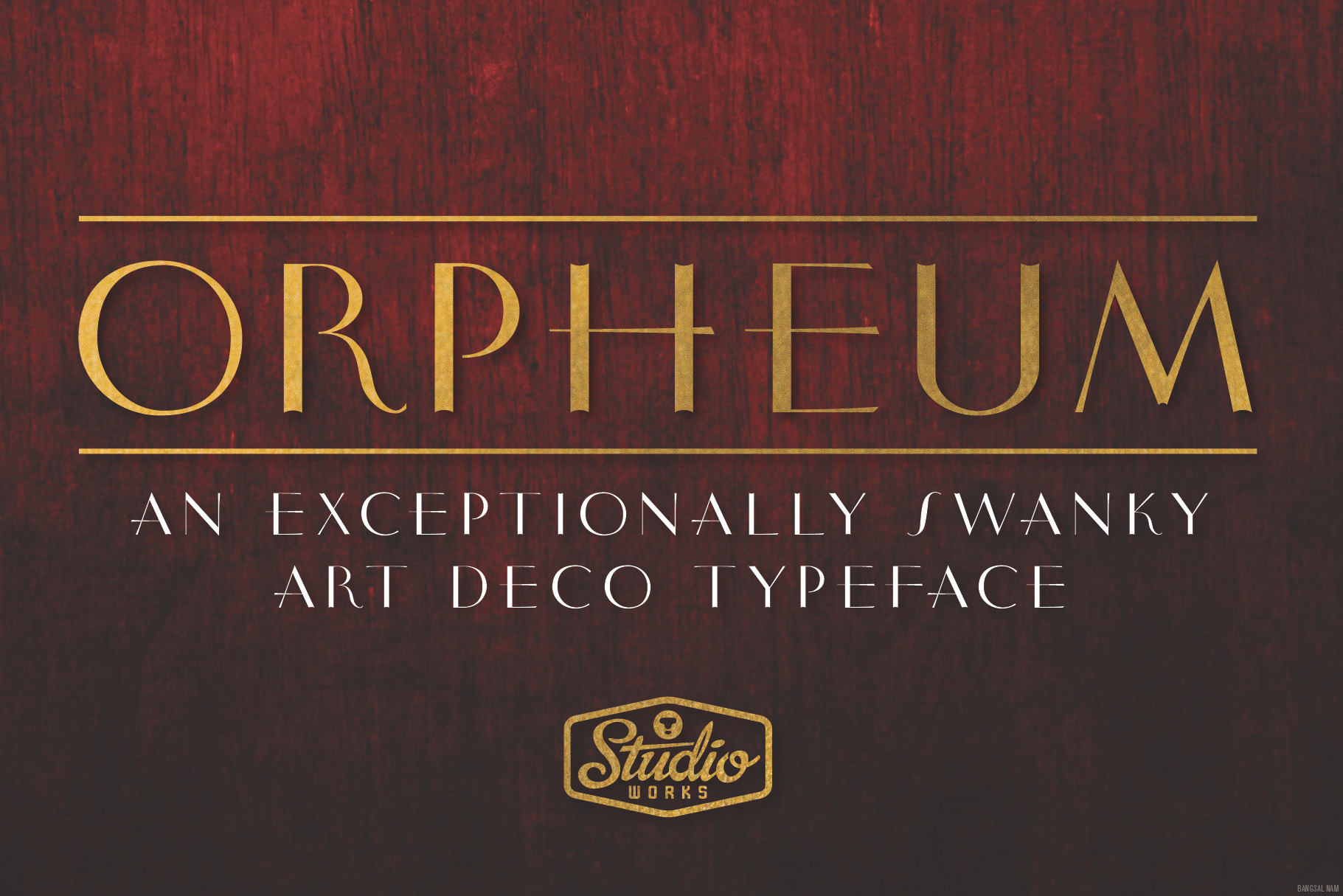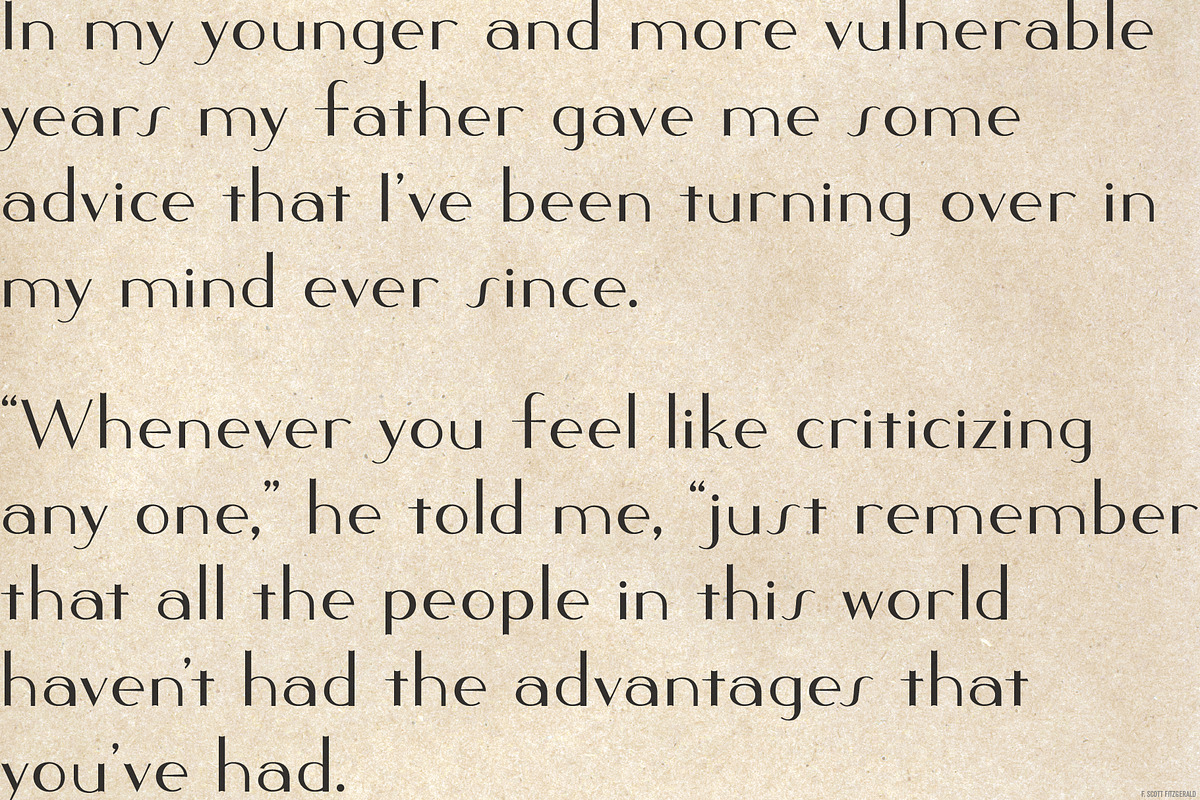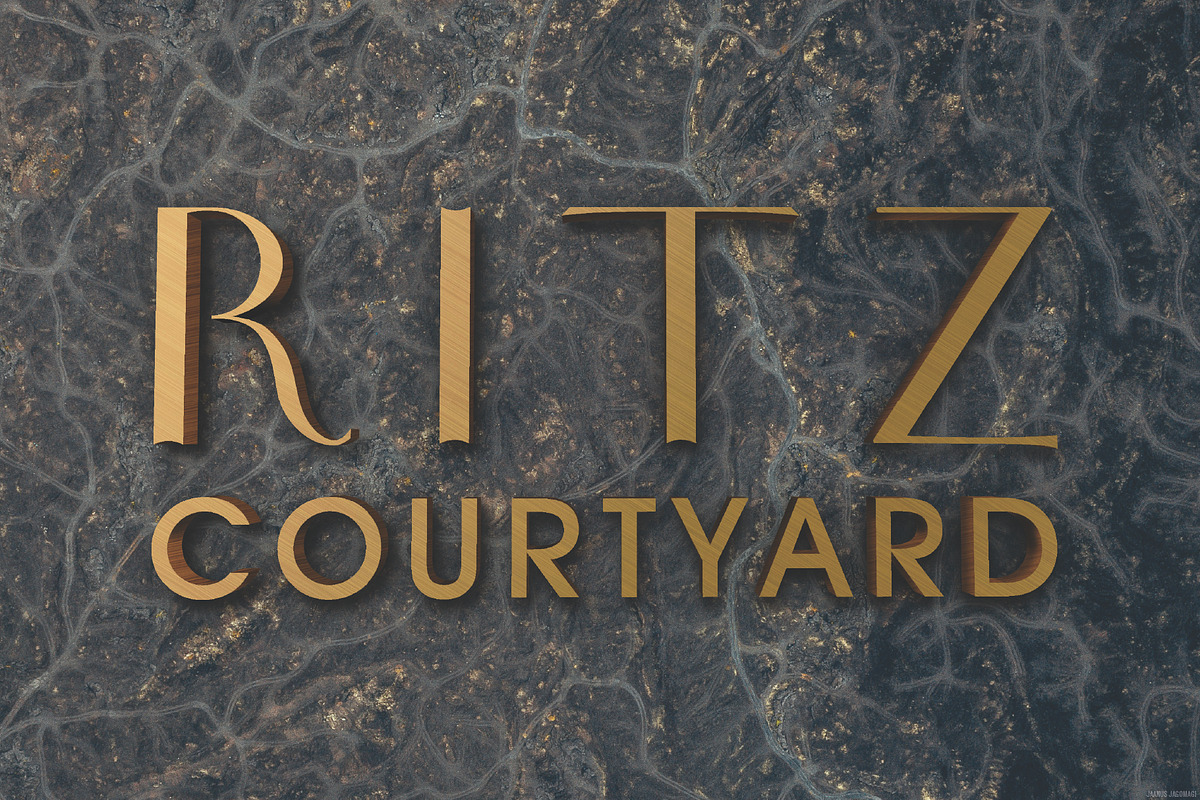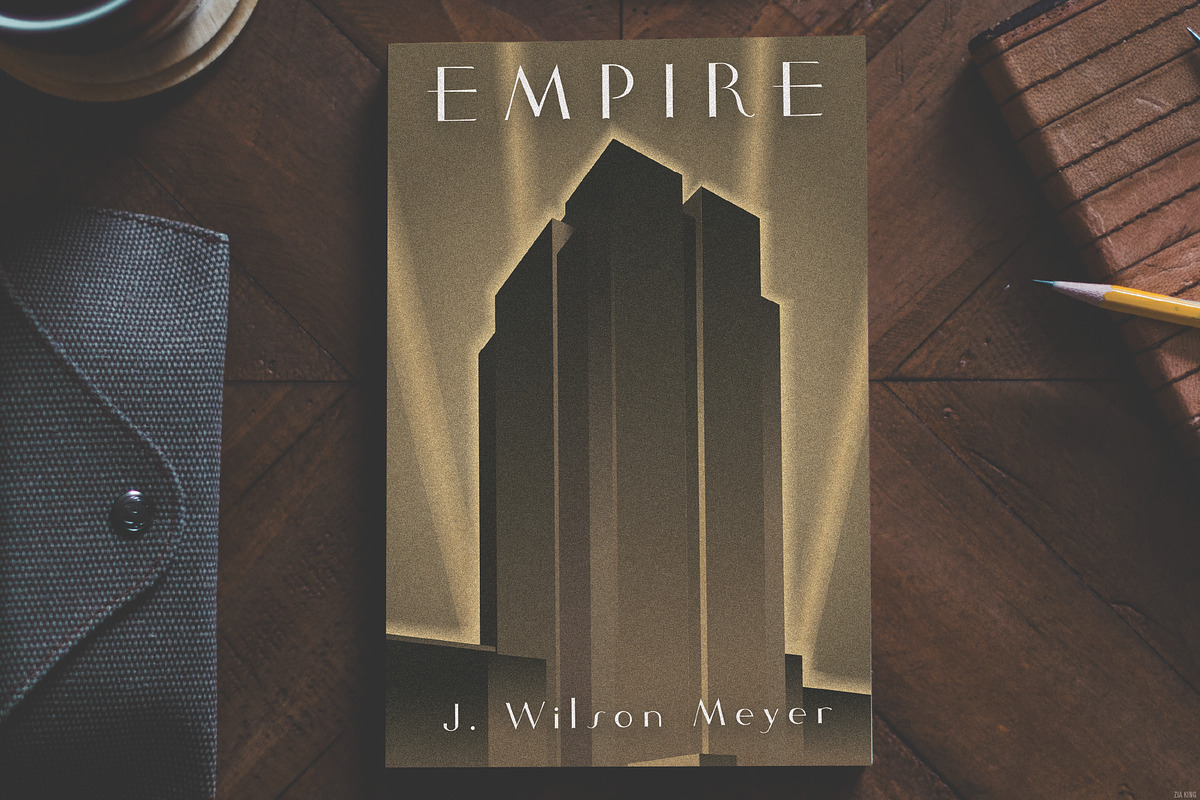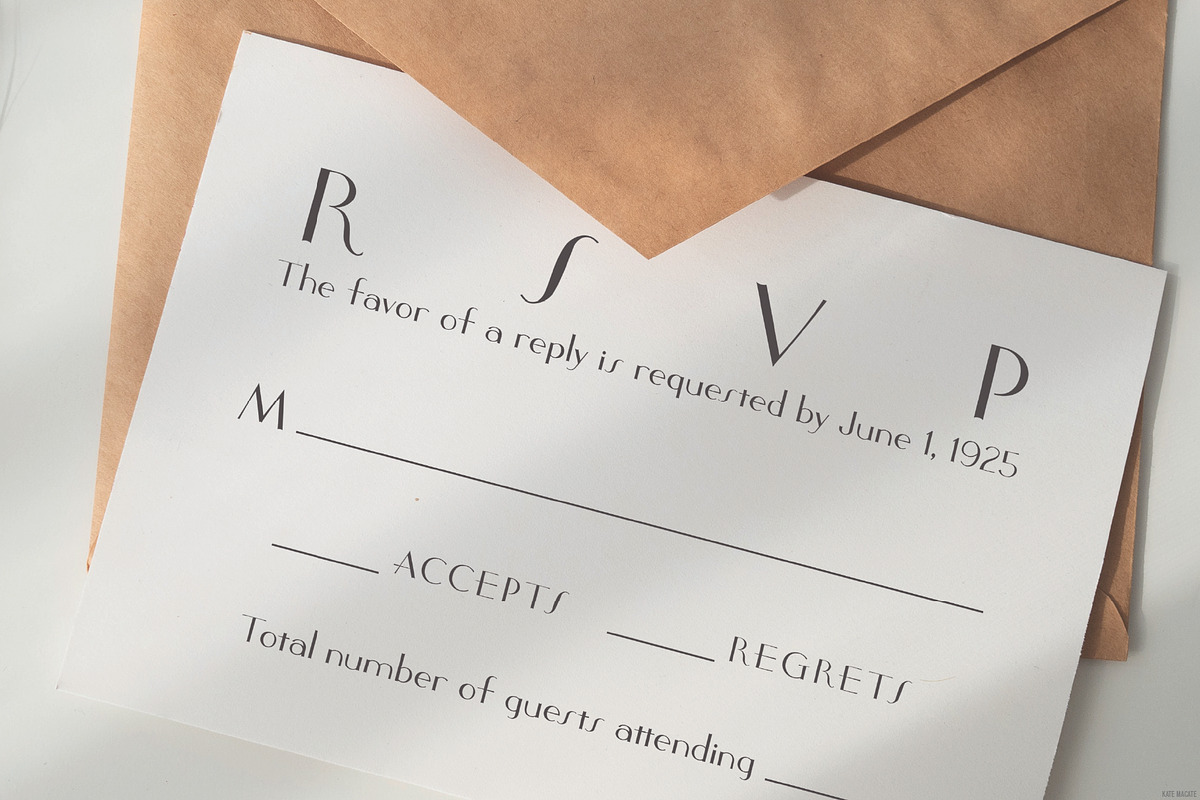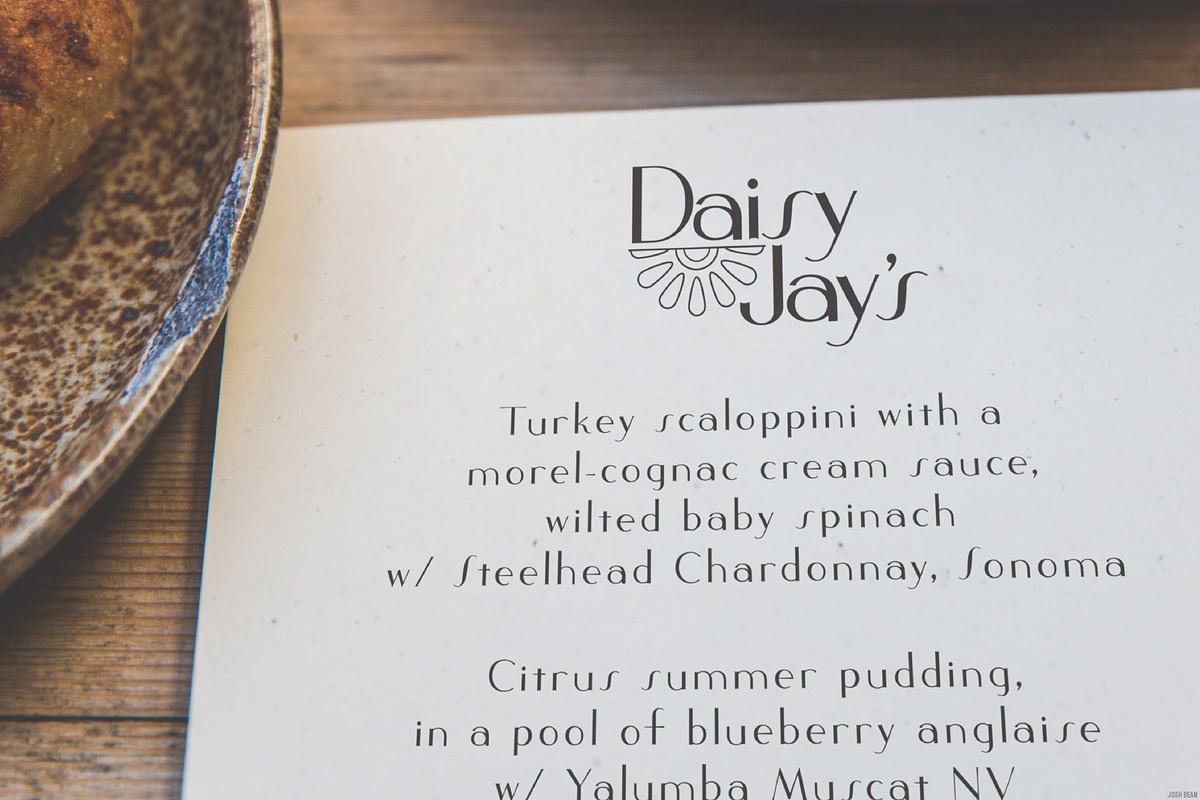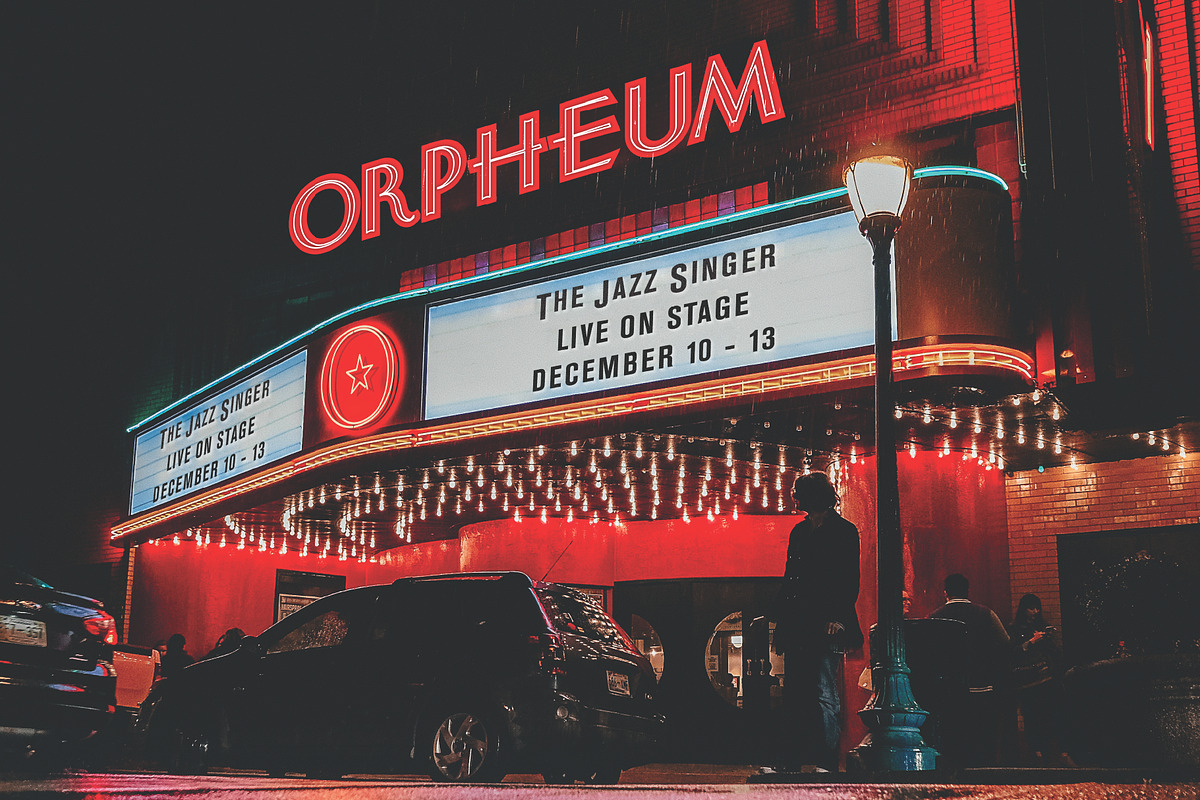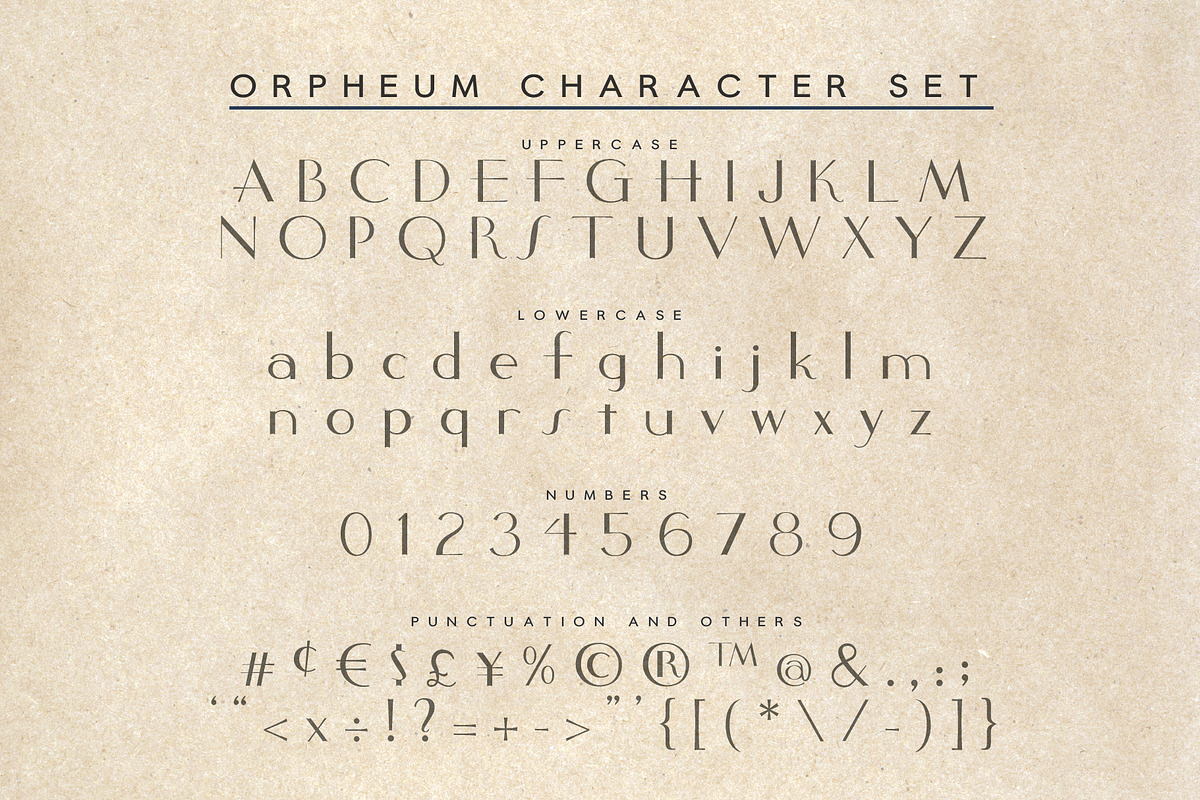
Orpheum | A Swanky Art Deco Typeface
O R P H E U M — An Exceptionally Swanky Art Deco Typeface.
Orpheum is a nod to the affluent opulence of the roaring ‘20s. Gilded with high contrast strokes and graceful curves, this typeface is exceptionally swanky.
In order to capture the elegance of the era, the Studio Works artists studied early 20th Century hand-lettered display type. Note the tapered hairline strokes and coved stems.
Whether it’s a night at the theatre or an upstage dinner downtown, Orpheum delights with historical charm.